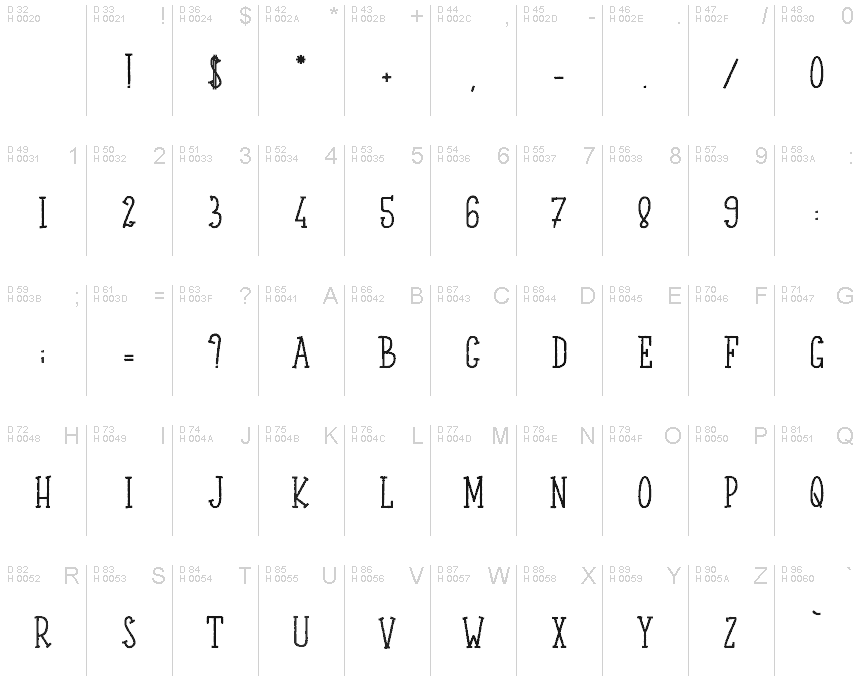
LEPRINCESURLEMOUTON
Le Prince sur le Mouton is a captivating display font crafted by Maelle.K and Thomas Boucherie. This lightweight, condensed typeface exudes a refined elegance, its delicate strokes evoking a sense of whimsical sophistication. The font's unique character lies in its refined yet playful aesthetic, with subtle flourishes and graceful curves that lend a touch of enchantment to any design.
This versatile font lends itself well to a variety of design applications, from high-end fashion editorials and luxury product packaging to charming wedding stationery and nostalgic branding. Its condensed width and light weight make it an excellent choice for headlines, titles, and display text, where it can captivate audiences with its striking visual presence.